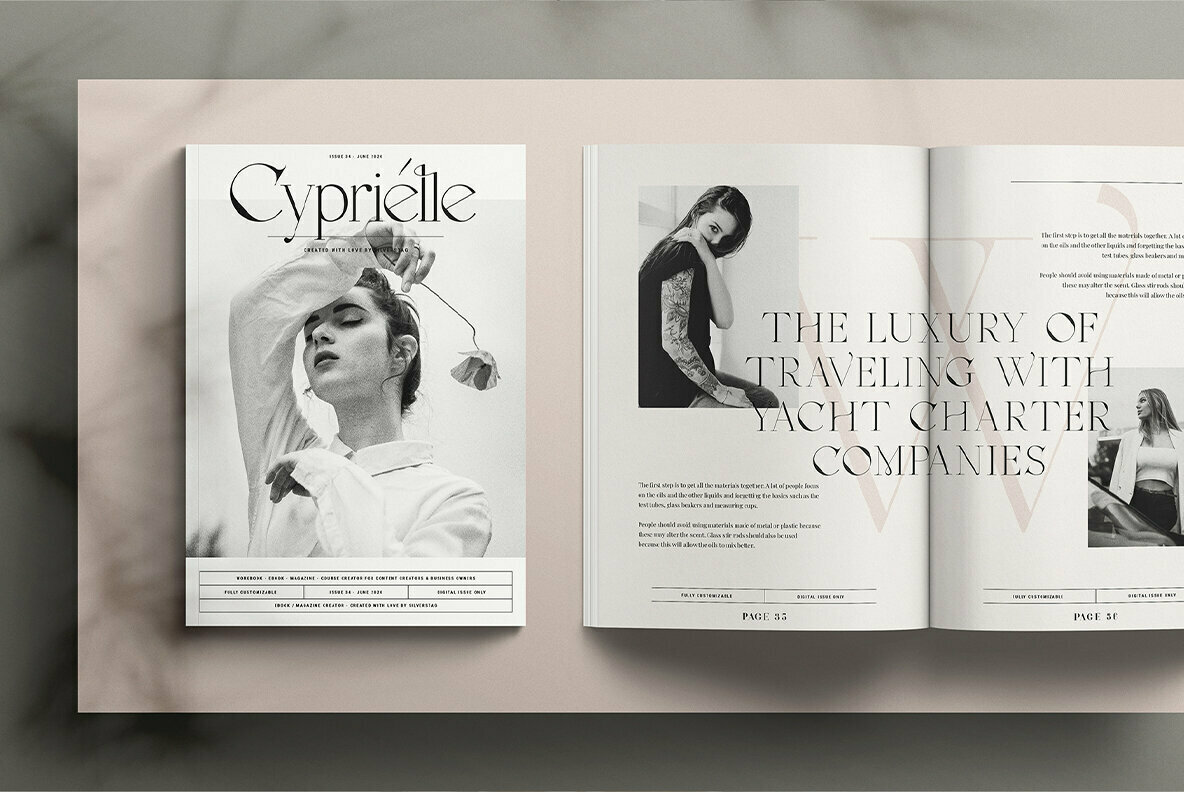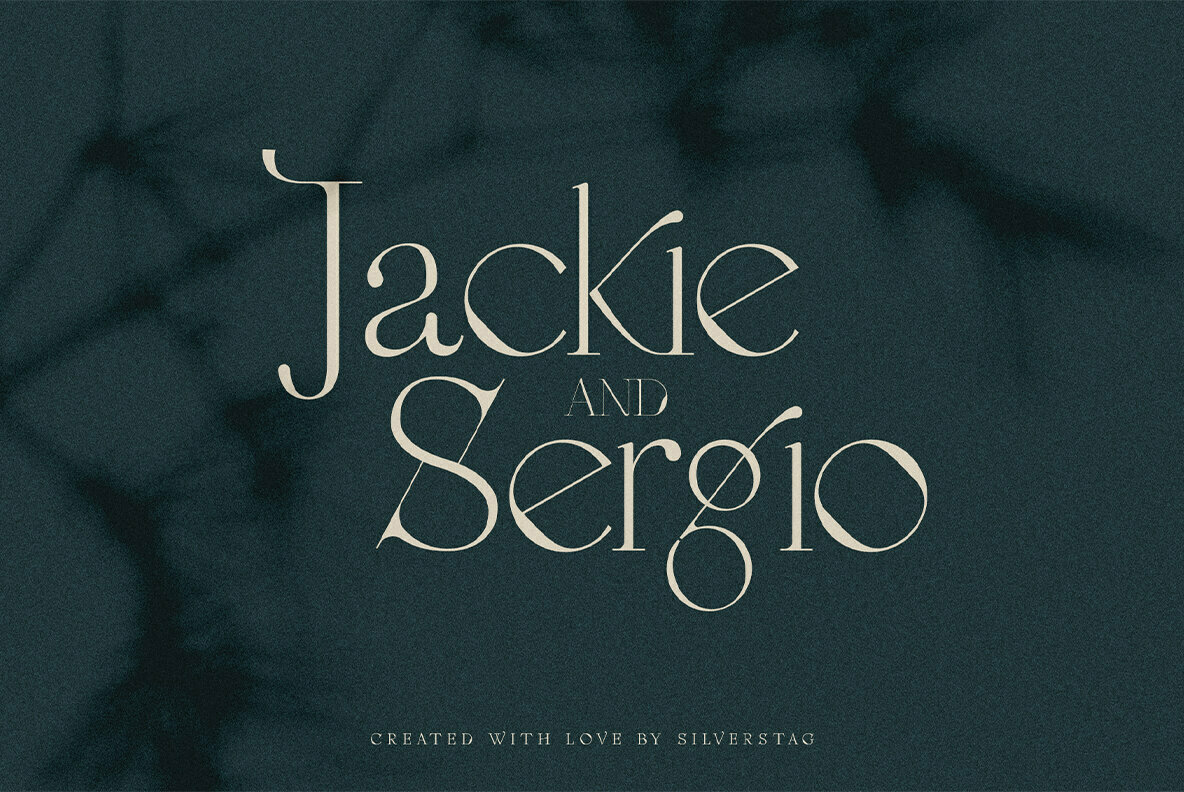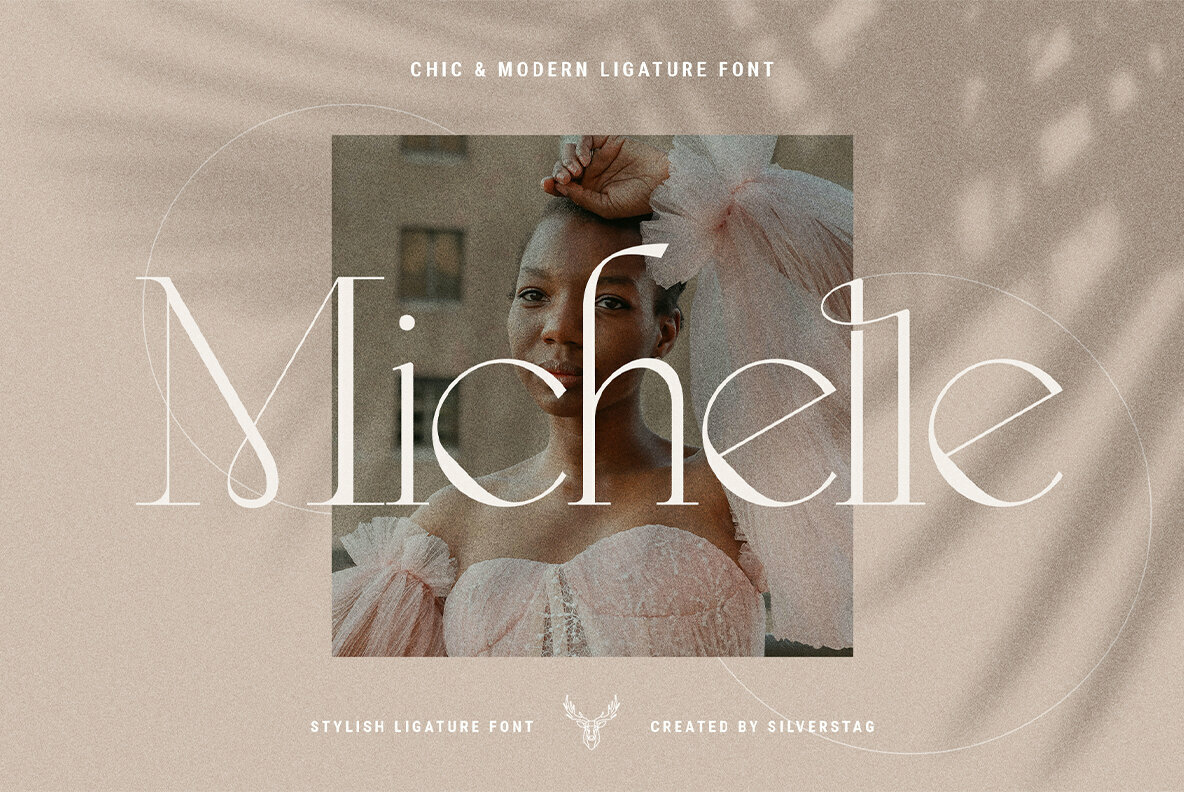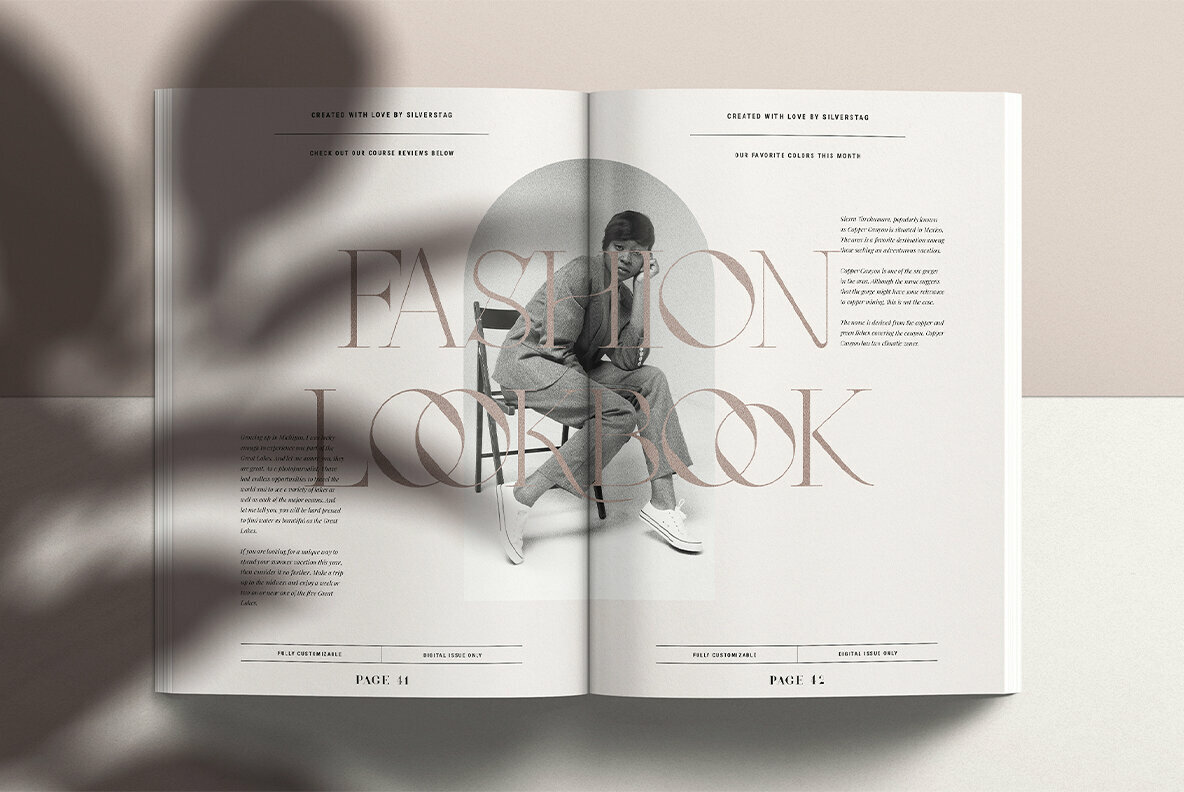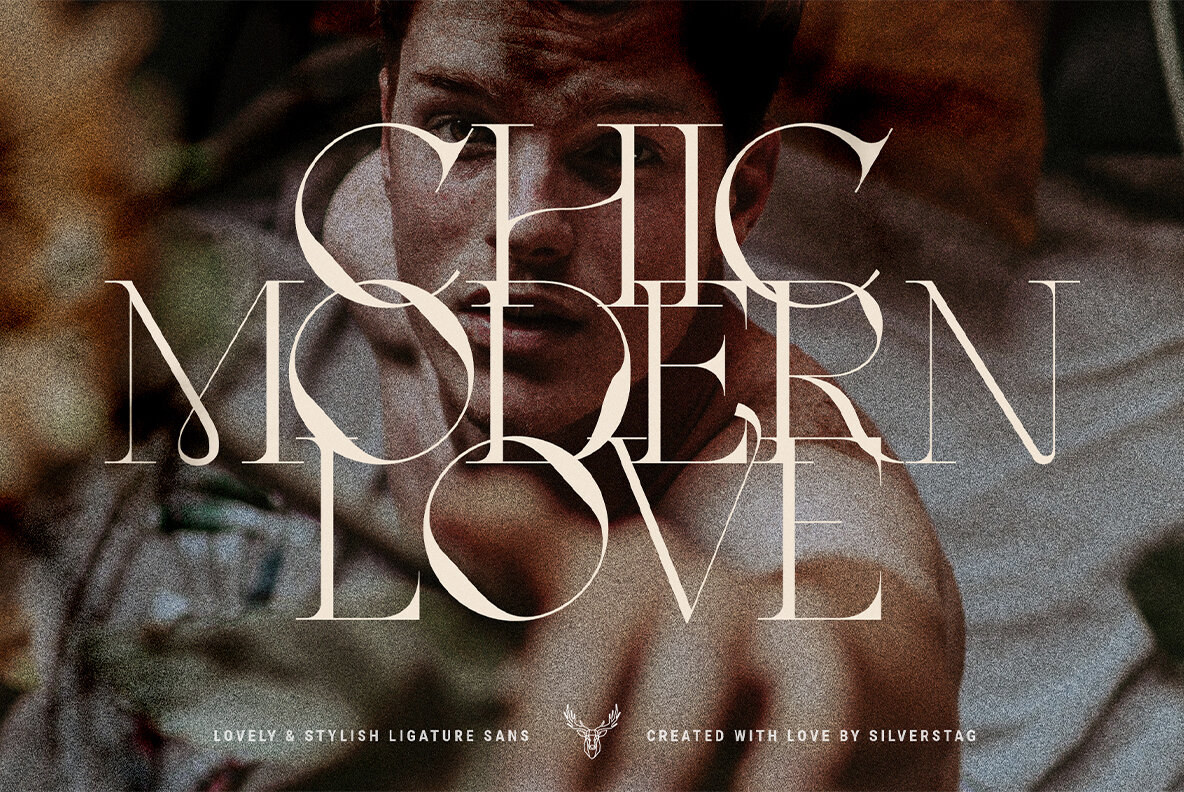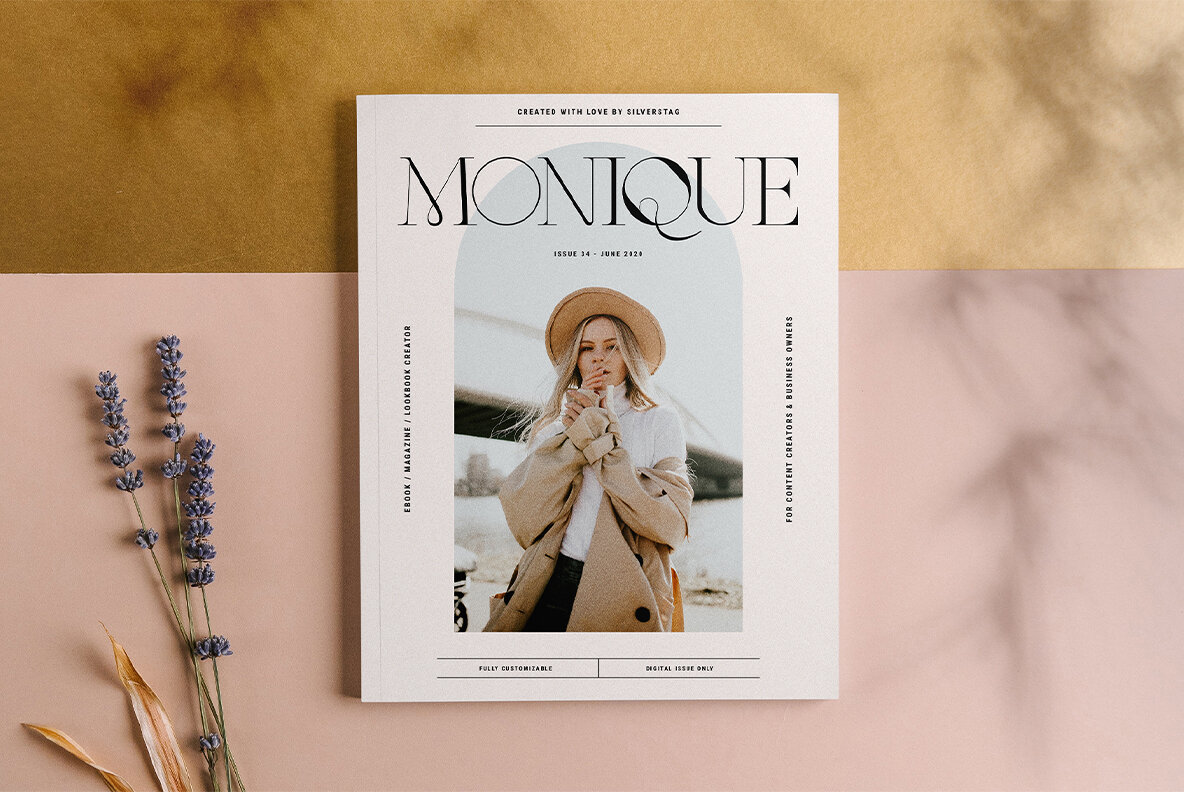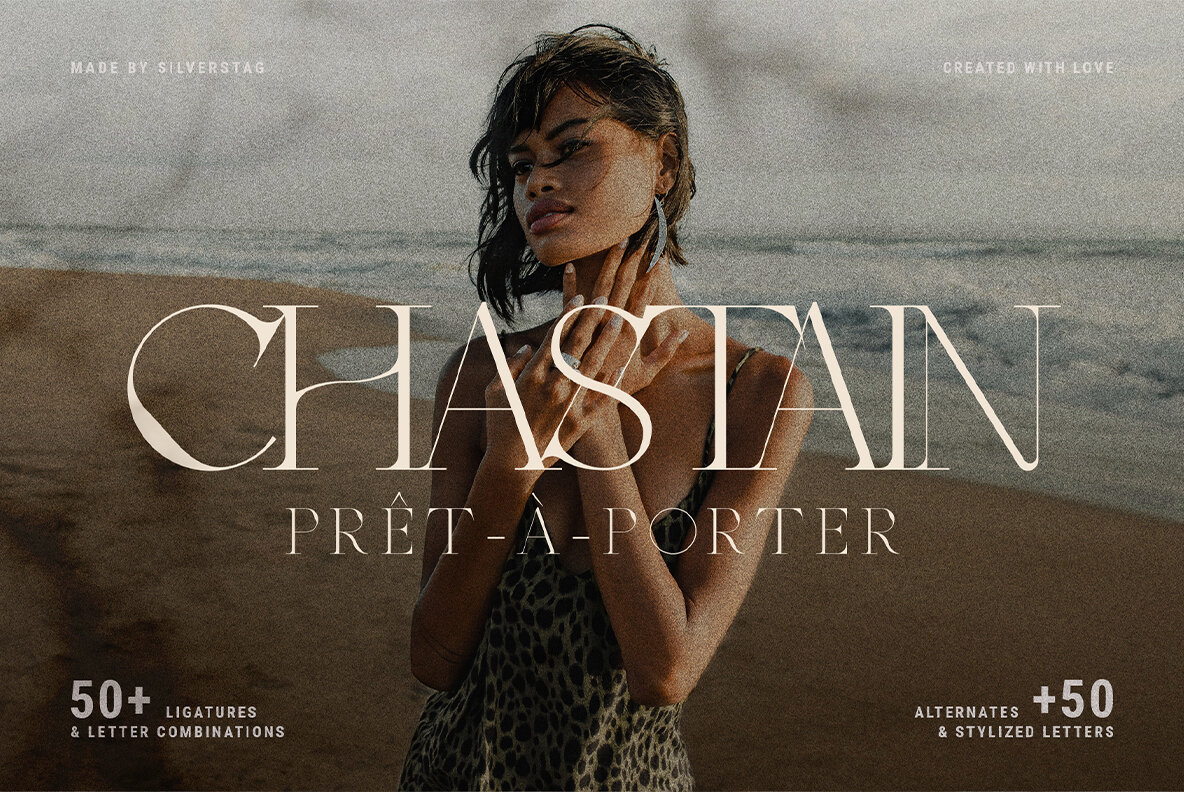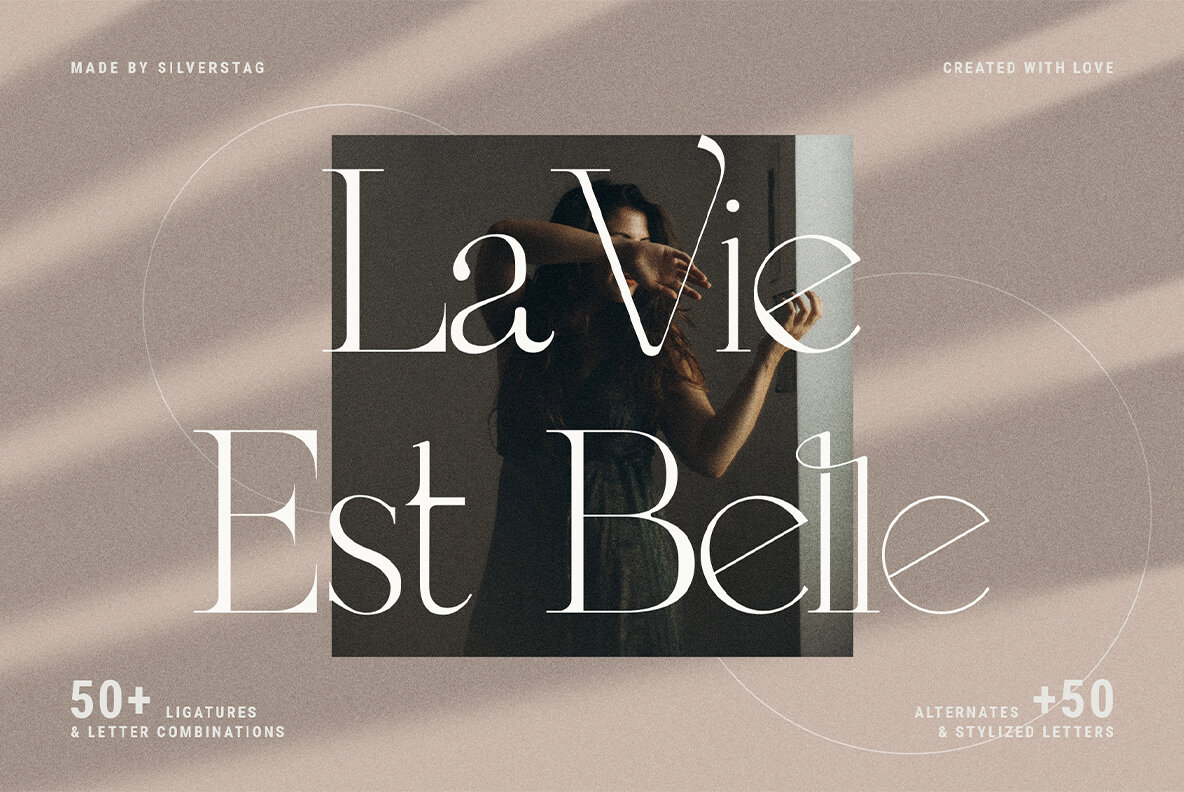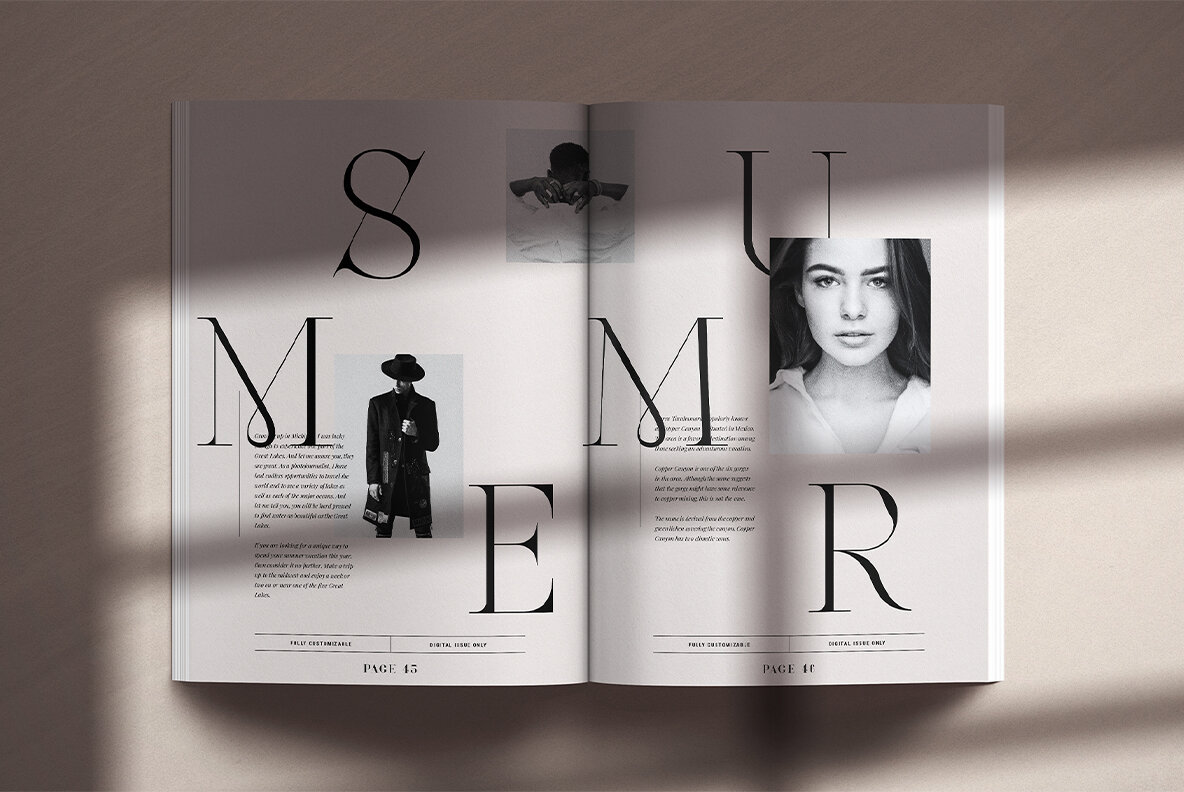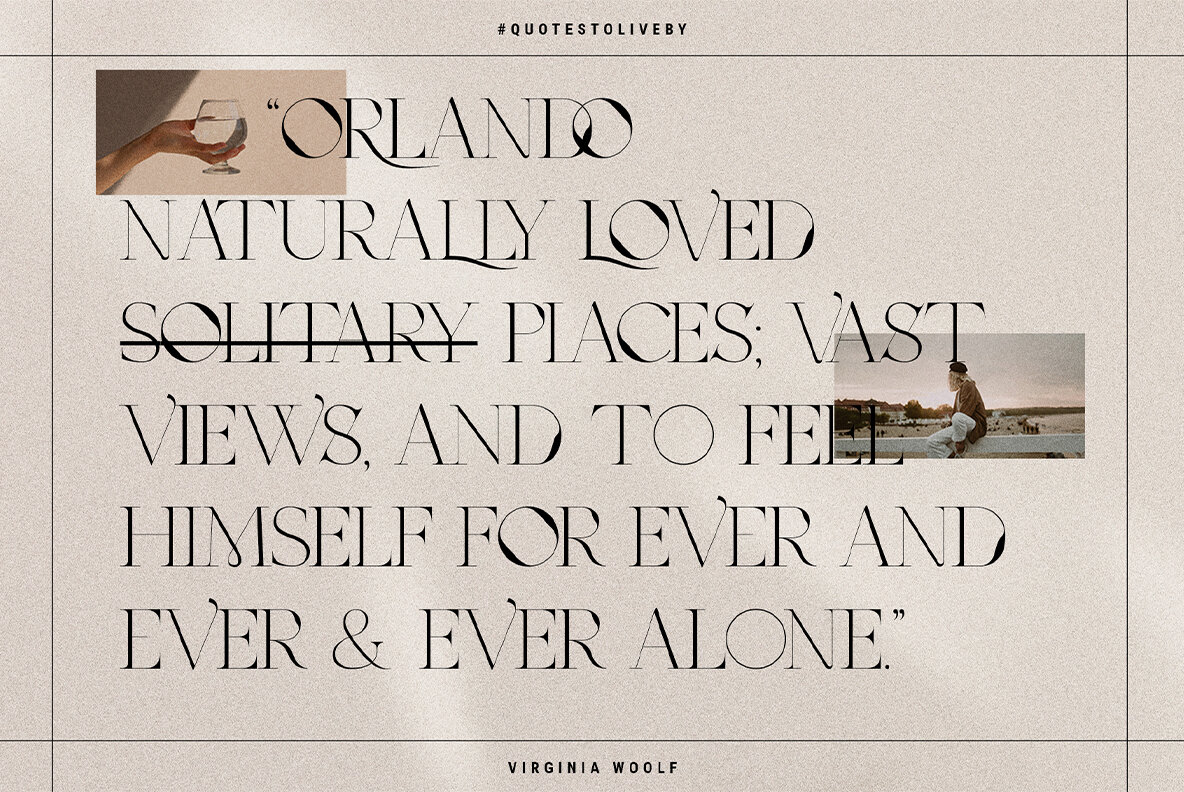
MOON CROWD Font
MOON CROWD
Hey guys, i am really proud to give you moon crowd, a brand new ligature serif font inspired by unbeatable elegance and beauty of fashion! My new chic font comes with over 100 ligatures and alternate letters. Each of the standard letters, ligatures, and alternates was handcrafted and made to fit other letters without exception. All letters are 100% unique with soft rounded edges that will give you a different look than any other serif font.
So, whether you have a client that needs a new chic logo, or you're designing your social media posts. Maybe you're preparing your wedding mood board, stationery, invitations, moon crowd ligature font is just perfect for all of that and more. Check out the photos i have prepared for you to see what you can do with it and happy creating!